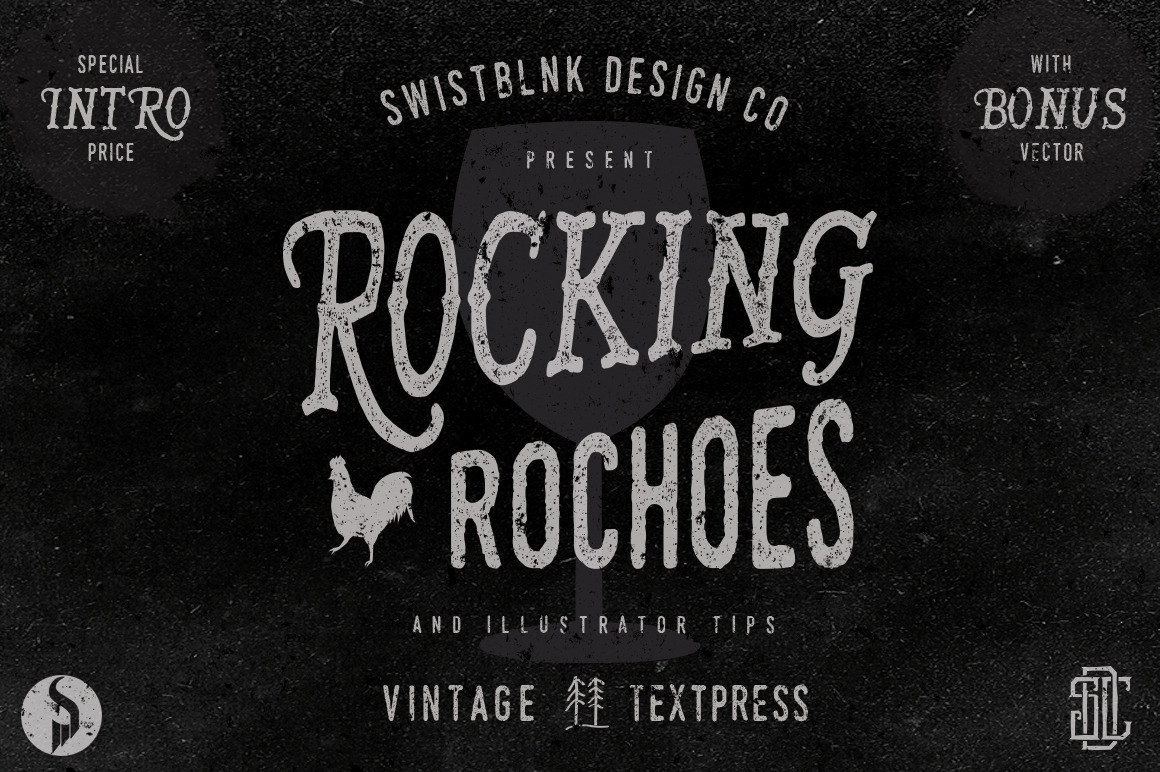
Rocking Rochoes Typeface
Rocking Bones is Serif Handdrawn like a Bone with handmade feel. You can use this font as creative as you want. Just imagine and touch the sky. With bonus vector pack from our Vintage Hand Drawn Style Logos And Badges :
Not just on text, you can also use your own setting for shape and raster. Skill requirements, You need to at least know how to use basic effects in Illustrator (inner glow, film grain and etc.)